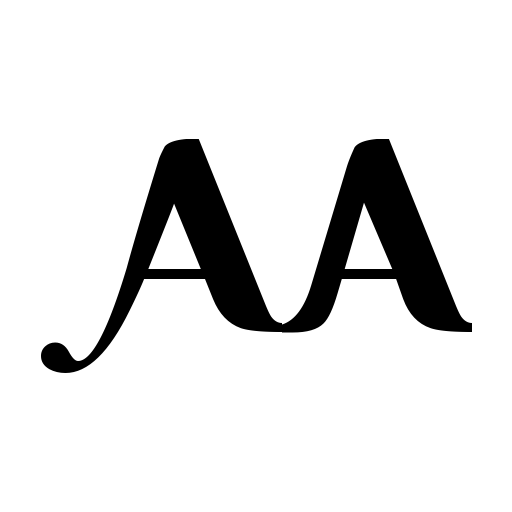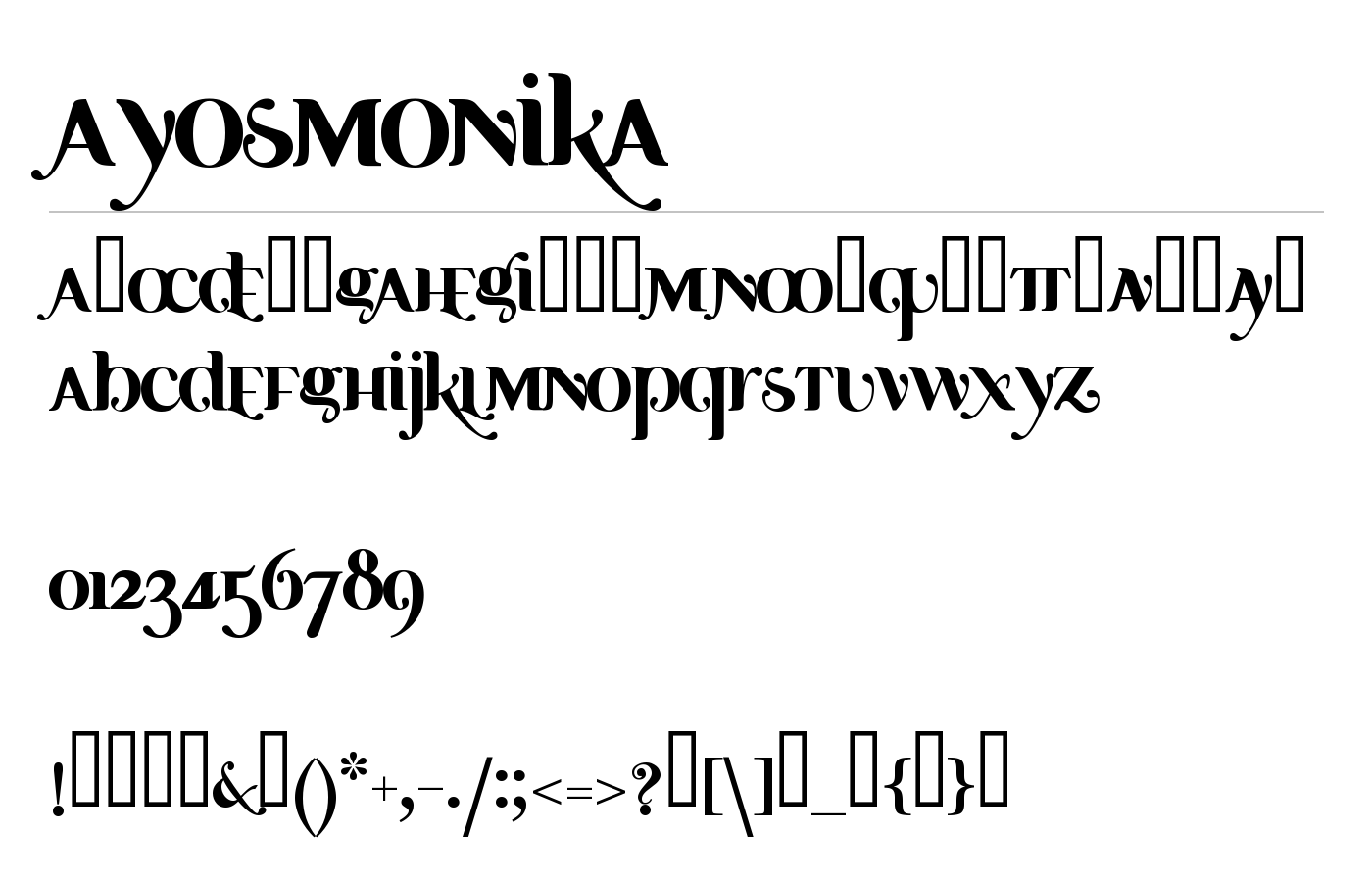
Ayosmonika is a distinctive serif font with strong modern Didone influences, featuring sharp contrasts between thick and thin strokes and delicate, bracketed serifs. Its elegant, high-contrast letterforms with unique flourishes and playful curves lend a sophisticated yet artistic personality, making it perfect for luxury branding, fashion editorials, and striking headlines. This font works well where style and refinement are key, adding a touch of elegance and creativity to logos, packaging, and upscale design projects.
Ayosmonika Font
About Ayosmonika Font